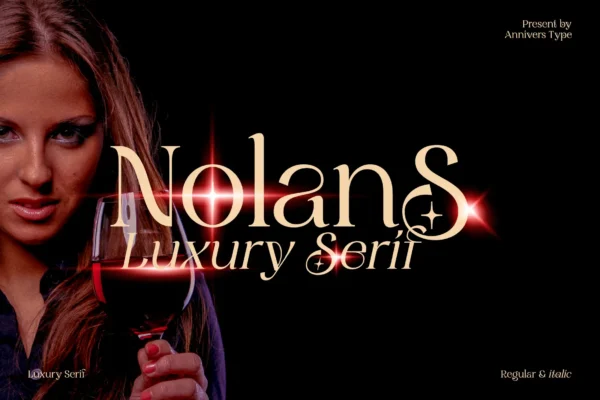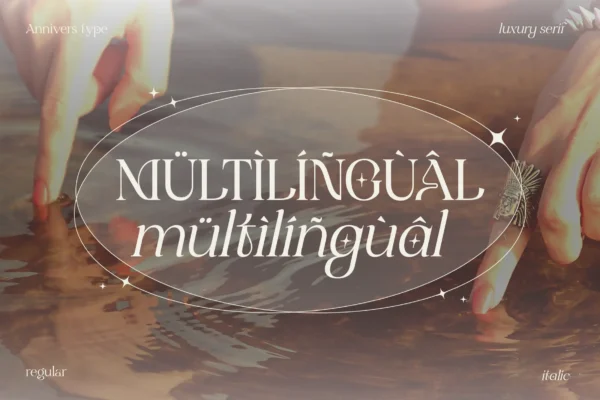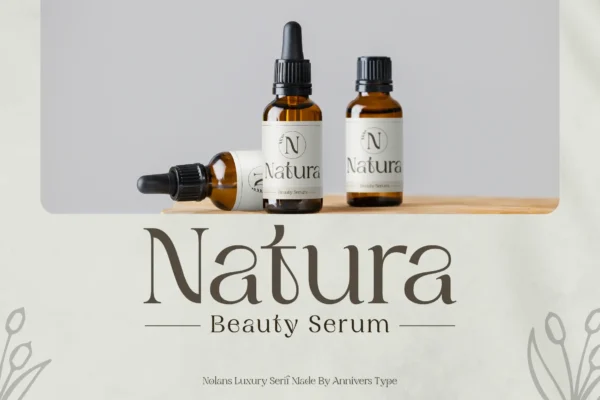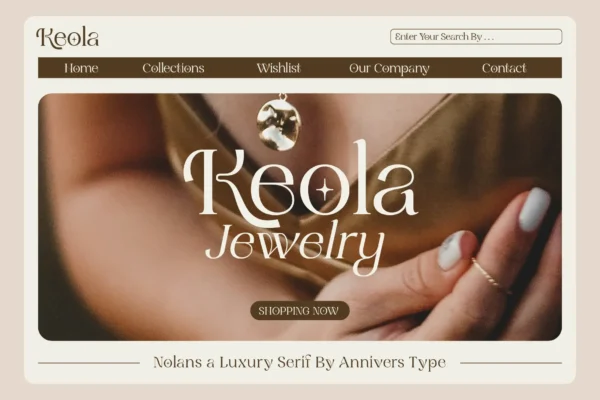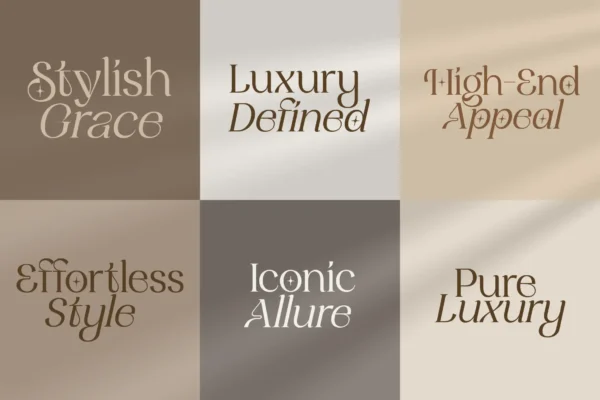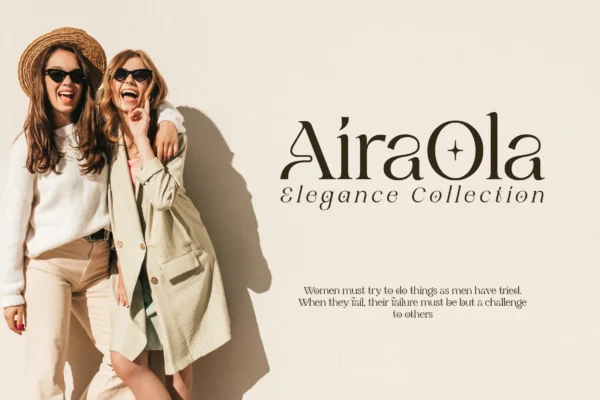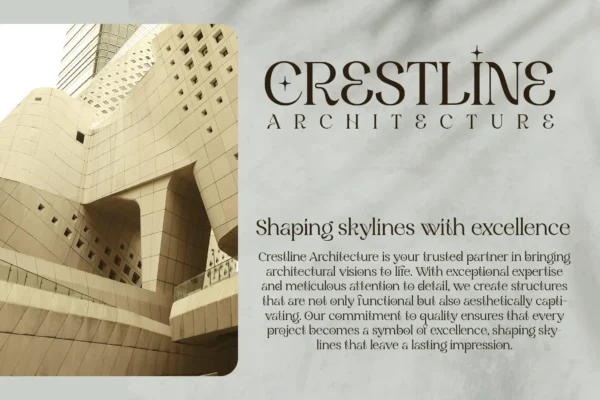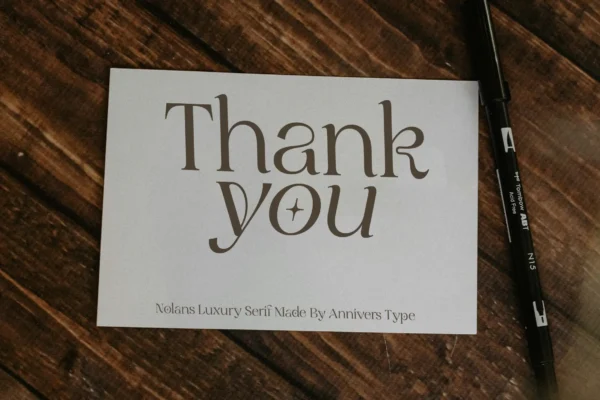
Nolans – Luxury Serif Typeface Font
Nolans Luxury Serif masterfully blends contemporary refinement with classic elegance, establishing it as the quintessential choice for sophisticated and fashionable design projects. It is an ideal typeface for developing branding for opulent goods, high-fashion lines, and deluxe packaging, lending every design an immediate touch of polish and distinction.
The font’s singular style is perfectly suited for editorial spreads, wedding stationery, and corporate business cards, where it imparts a feeling of charm and exclusivity. Nolans also makes a powerful statement in logotypes and headlines, providing designers with a graceful yet adaptable tool for communicating a sense of modern opulence.
Features:
- Complete uppercase and lowercase character sets
- Full set of numerals and punctuation
- Advanced OpenType features, including ligatures and alternates
- Comprehensive Multilingual Support